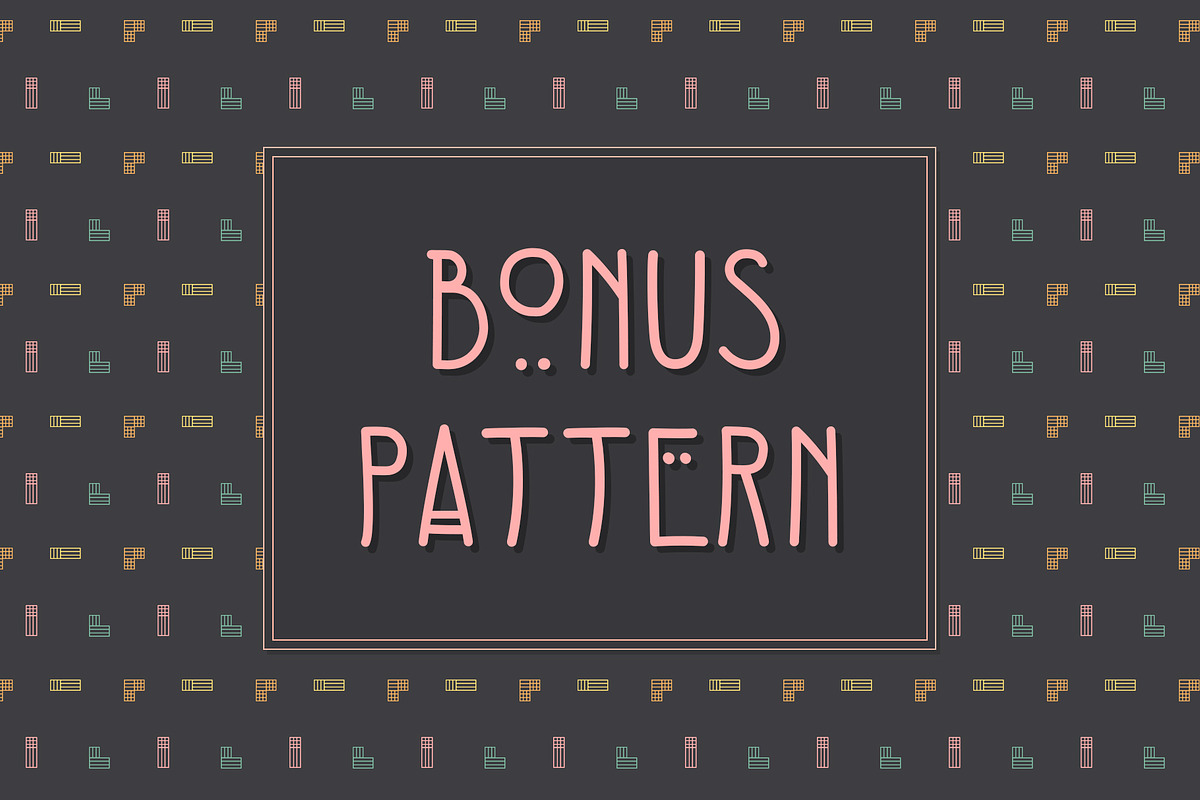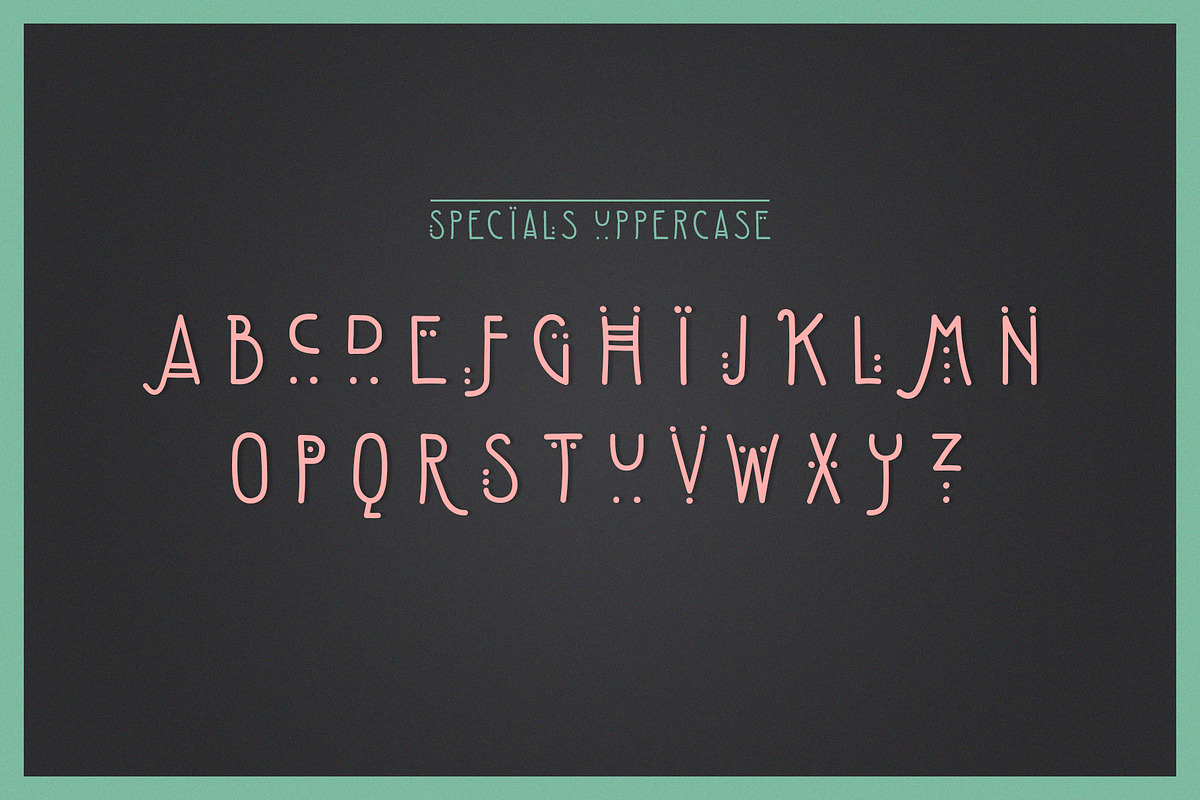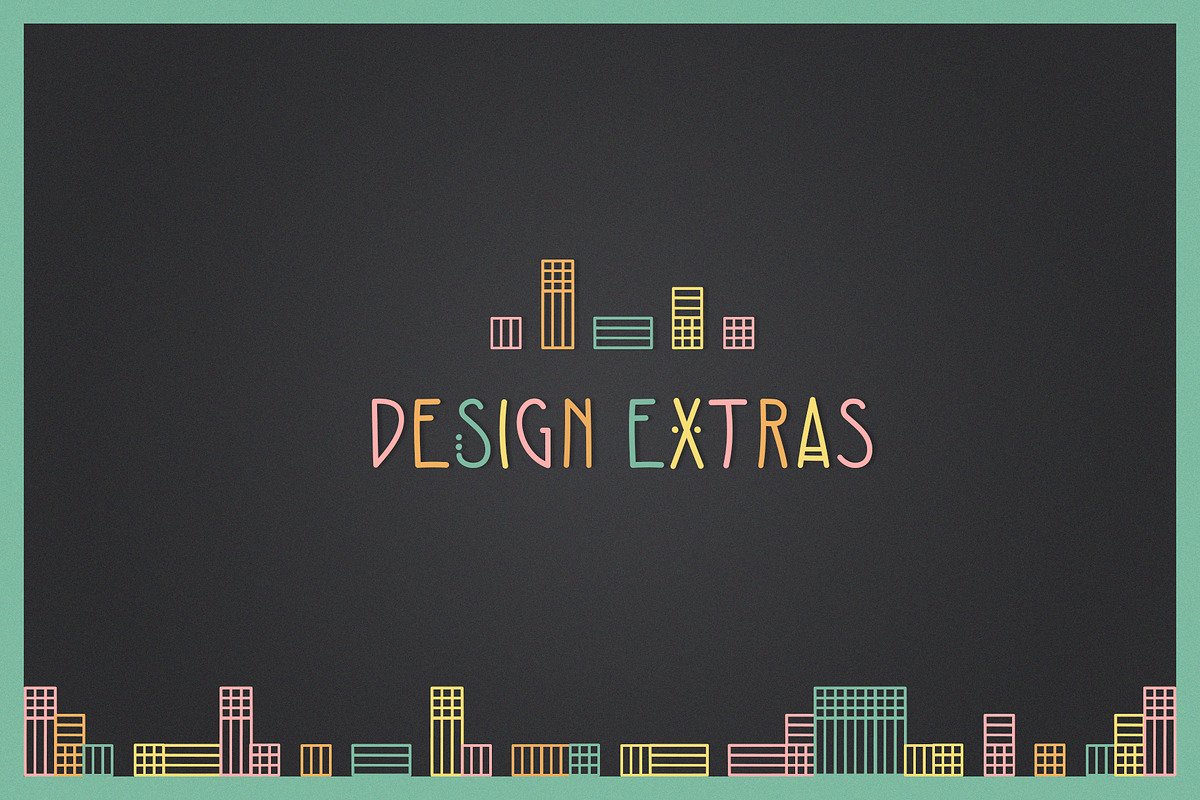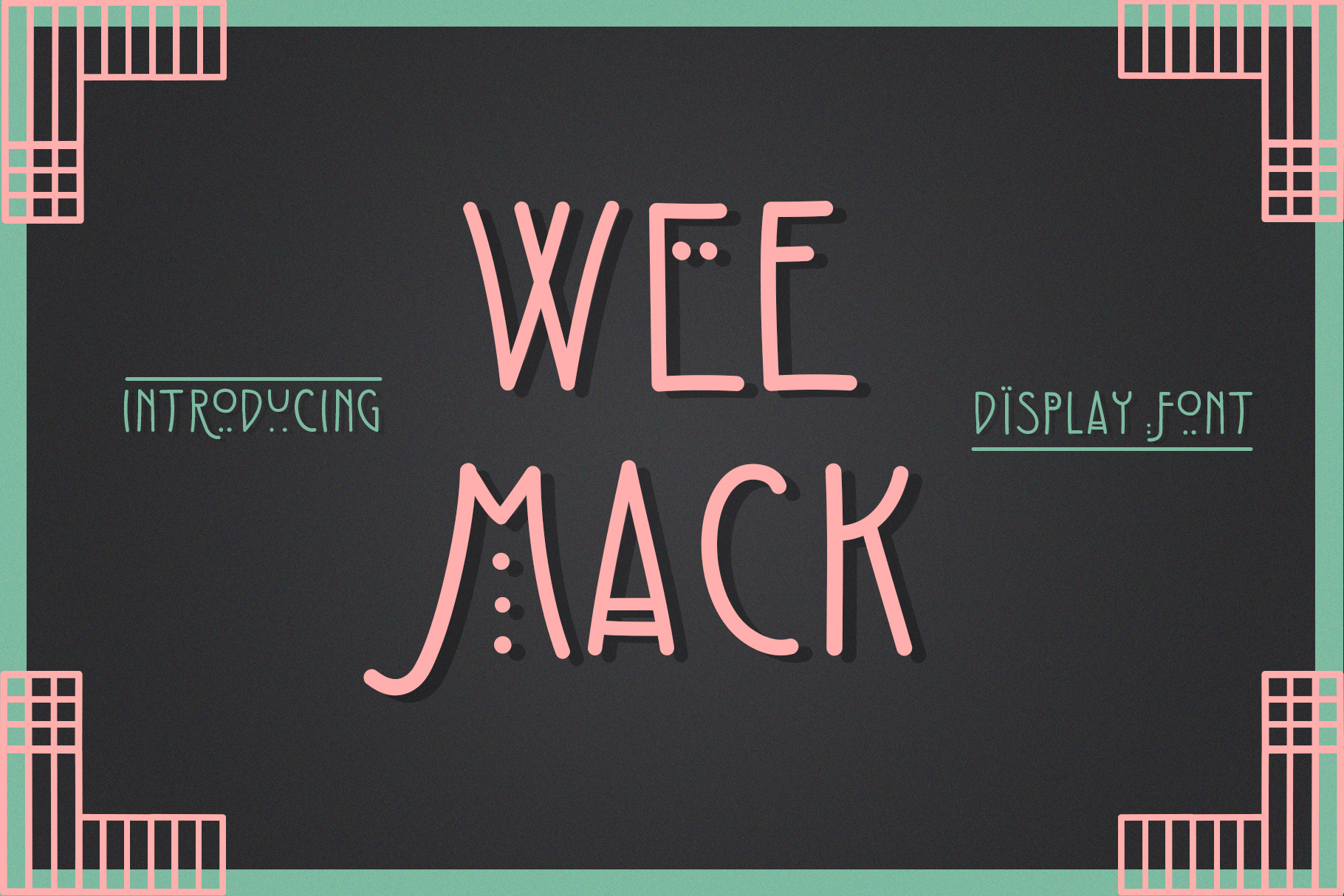
The Wee Mack Display Font
Wee Mack is a playful uppercase Display font inspired by imagining the doodles of Charles Rennie Mackintosh as a boy. With a standard version (lowercase) and a decorative (uppercase) version, the Wee Mack is quirky font that is both Elegant and fun, and could bring a distinct vintage look to anything from Book covers to Invitations.
The font includes Decorative design extras that are based on some of the Mack's work and inspired by his hometown Glasgow. These can easily be made into borders, illustrations and backgrounds to make a complete design with the font alone!
- Standard version (lowercase)
- Decorative version (uppercase)
- Numbers and standard punctuation
- Special character combinations to make key words stand out
- Decorative design extras to make borders and illustrations (font characters listed in guide)